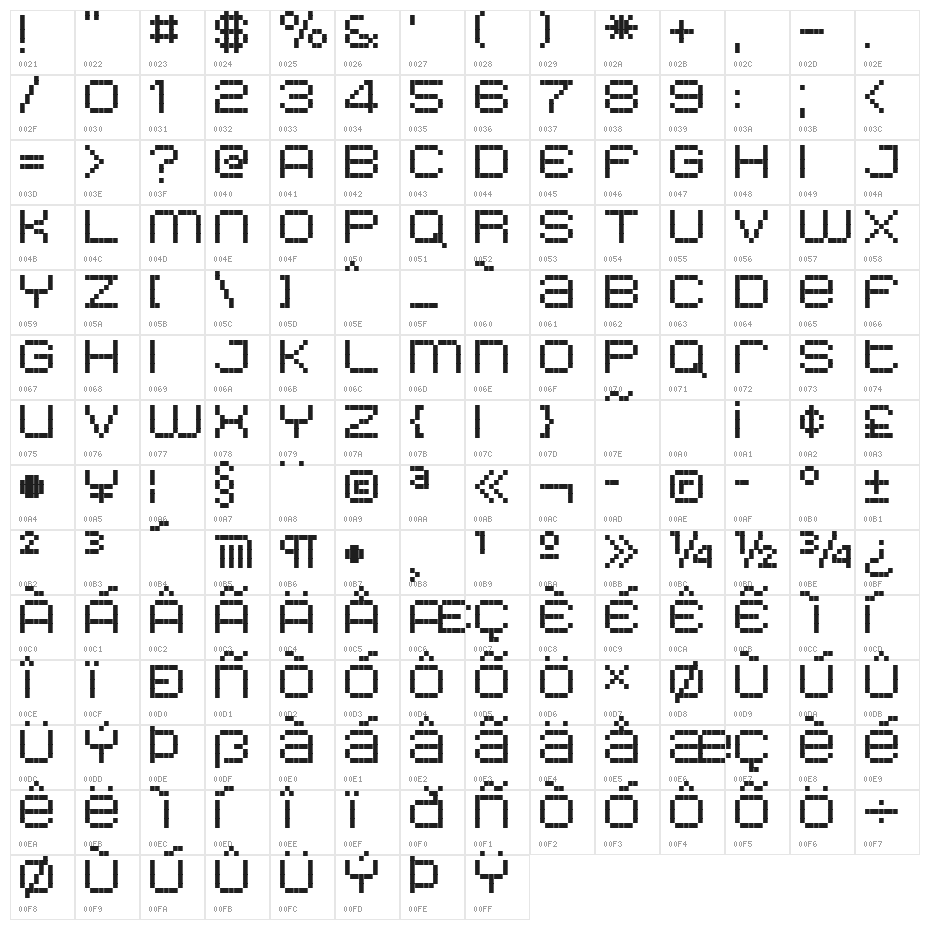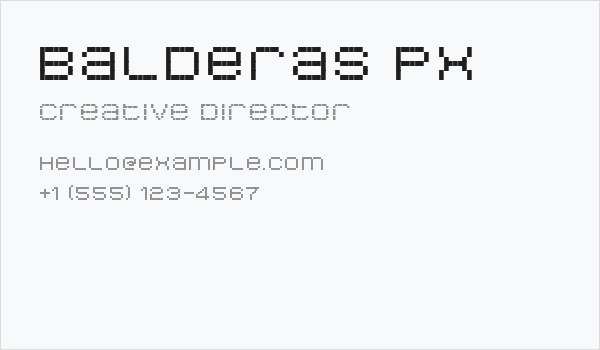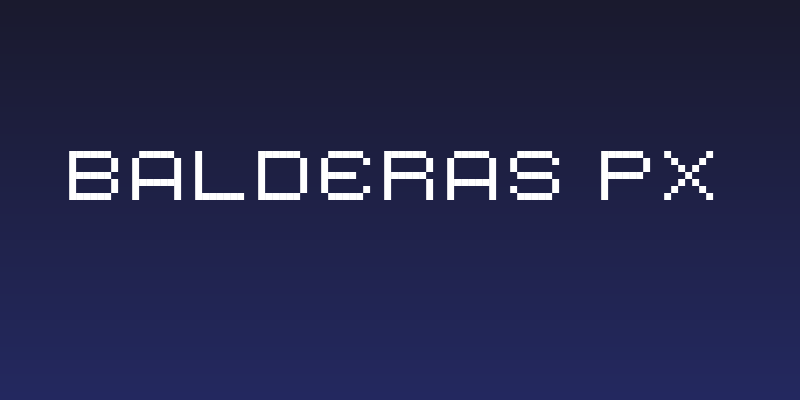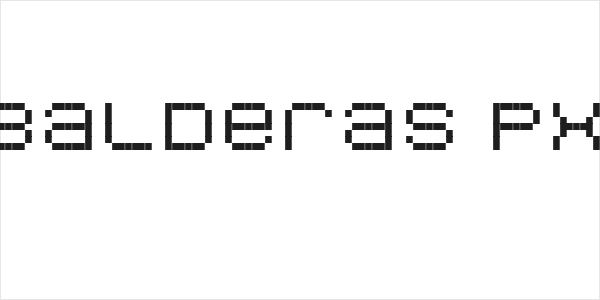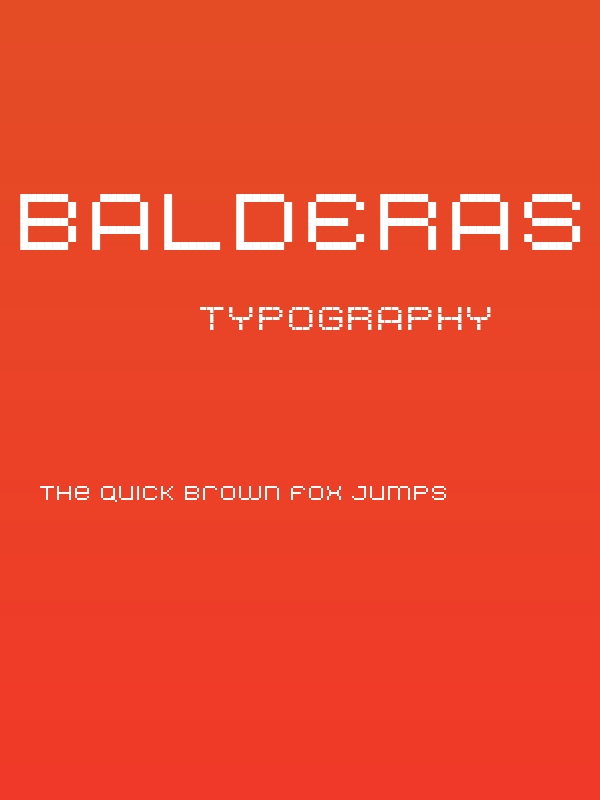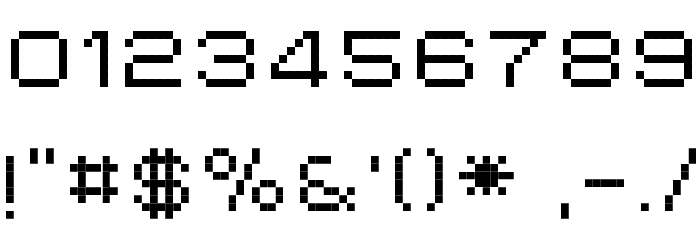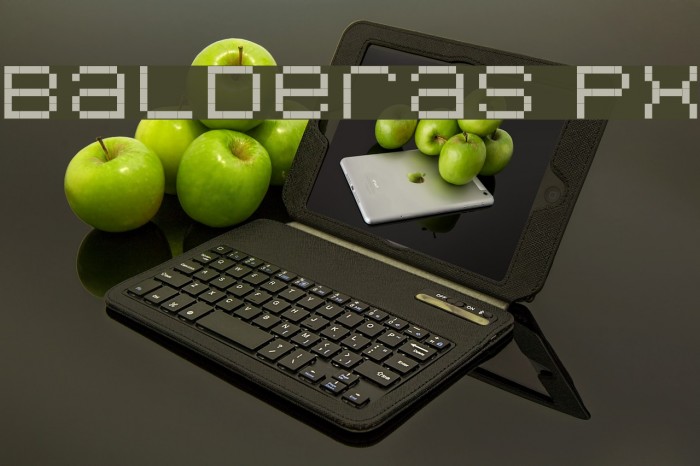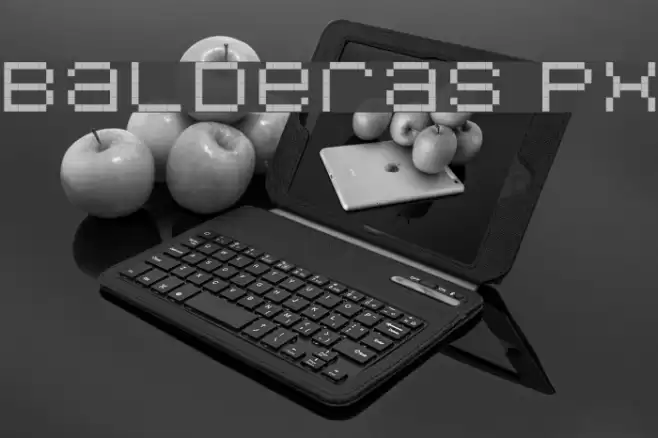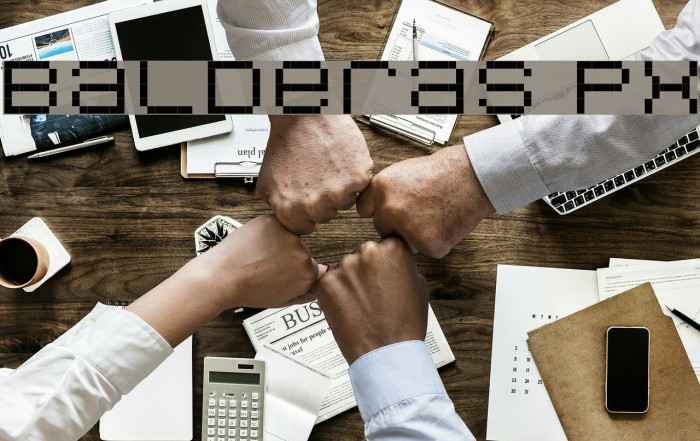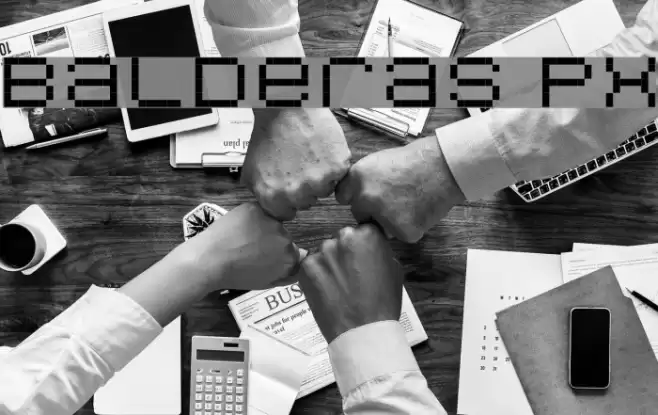
Balderas Px Font
Balderas Px Description
This font features a pixelated, blocky design reminiscent of early digital displays and retro video games. Each character is constructed with a grid-like precision, giving it a distinctly geometric appearance. The uppercase and lowercase letters maintain a consistent height, contributing to a uniform look. The numerals and special characters follow the same pixelated style, ensuring cohesion across all elements. This font's unique aesthetic is both nostalgic and modern, making it suitable for projects that aim to evoke a sense of digital nostalgia or a tech-inspired theme.
| Overall Style | Retro, Digital |
| Use Case | Logos, Posters, Digital Art |
| Proposed Projects | Ideal for video game design, tech-themed posters, digital art projects, and retro-inspired branding. |